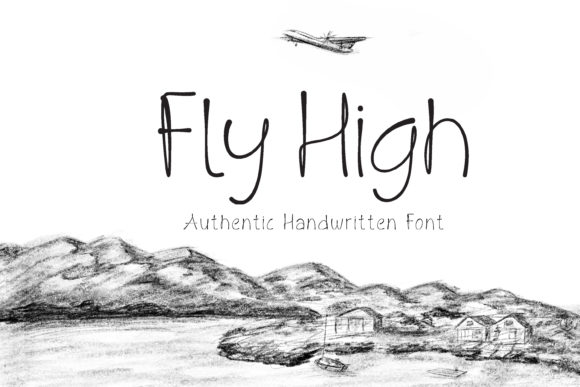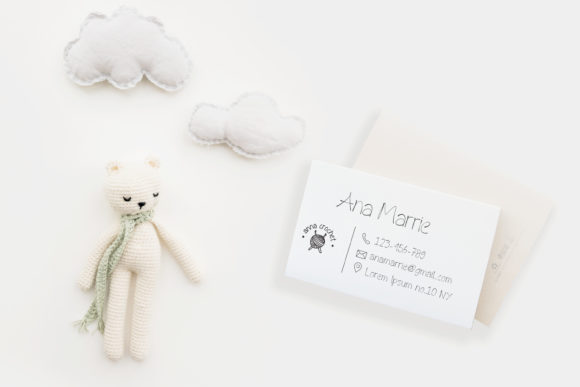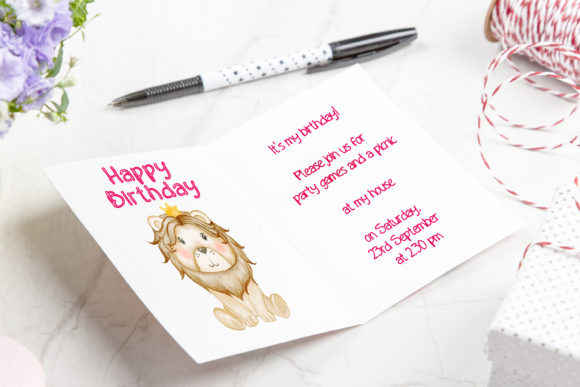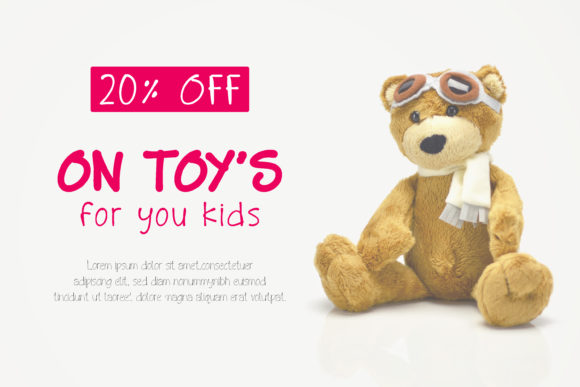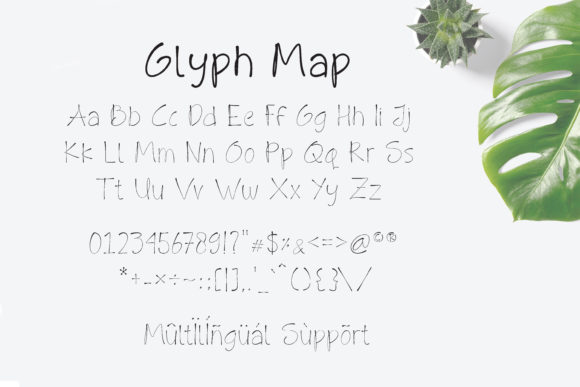
HomeScript FontsFly High Font Script Fonts Fly High Font FacebookXPinterestWhatsApp Fly High Font Poster 2 Fly High Font Poster 3 Fly High Font Poster 4 Fly High Font Poster 5 About Fly High Font Fly High is an authentic handwritten font. Use it for any design project that requires a personalized appearance! DOWNLOAD ON CREATIVE FABRICAThis font is sold and delivered by Creative Fabrica. Font Canyon may earn a commission if you buy through this link. People also explored Caligraphy Font Stenlies Font Pellegrie Signature Font Adistta Font Horrorizer Font Mahadetty Font Chifas Gabiella Font Ania Gamelia Font Swiss Bloom Font 348 0 TagsFly High Font Previous articleRomansan FontNext articleLotherday Font LEAVE A REPLY Cancel reply Comment: Please enter your comment! Name:* Please enter your name here Email:* You have entered an incorrect email address! Please enter your email address here Website: Save my name, email, and website in this browser for the next time I comment. Personal Use Free Dacquoise Personal Use Free Read more about this font BD Geminis Personal Use Free Read more about this font Larosh Sithal Duo Personal Use Free Read more about this font Harmony Personal Use Free Read more about this font BLOG To increase your work productivity, choose the most readable fonts. In today's fast-paced work environment, where digital communication and information consumption are integral to our daily routines, the choice of fonts can significantly impact... Modern Sans-Serif Fonts That Brands Love in 2025 Free vs Paid Fonts: Why Investing in Premium Fonts Is Worth It Best Fonts for T-Shirt Design – Top 2025 Picks